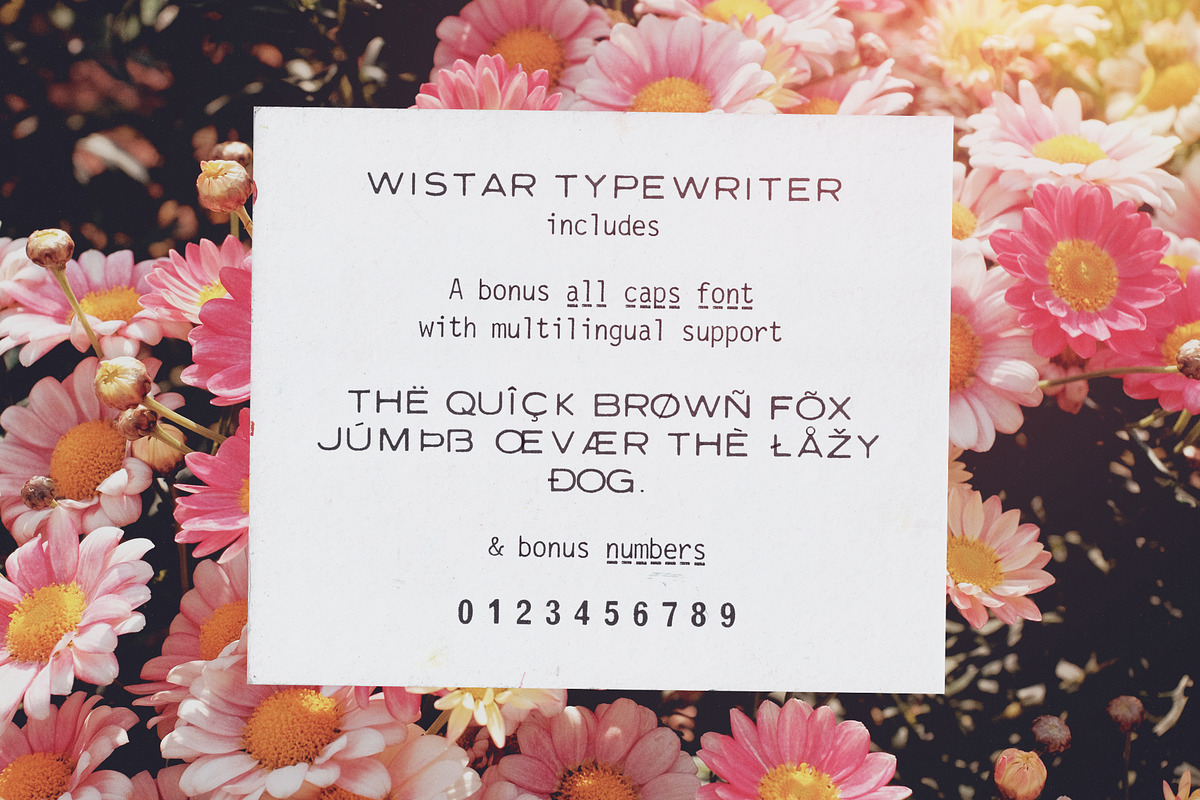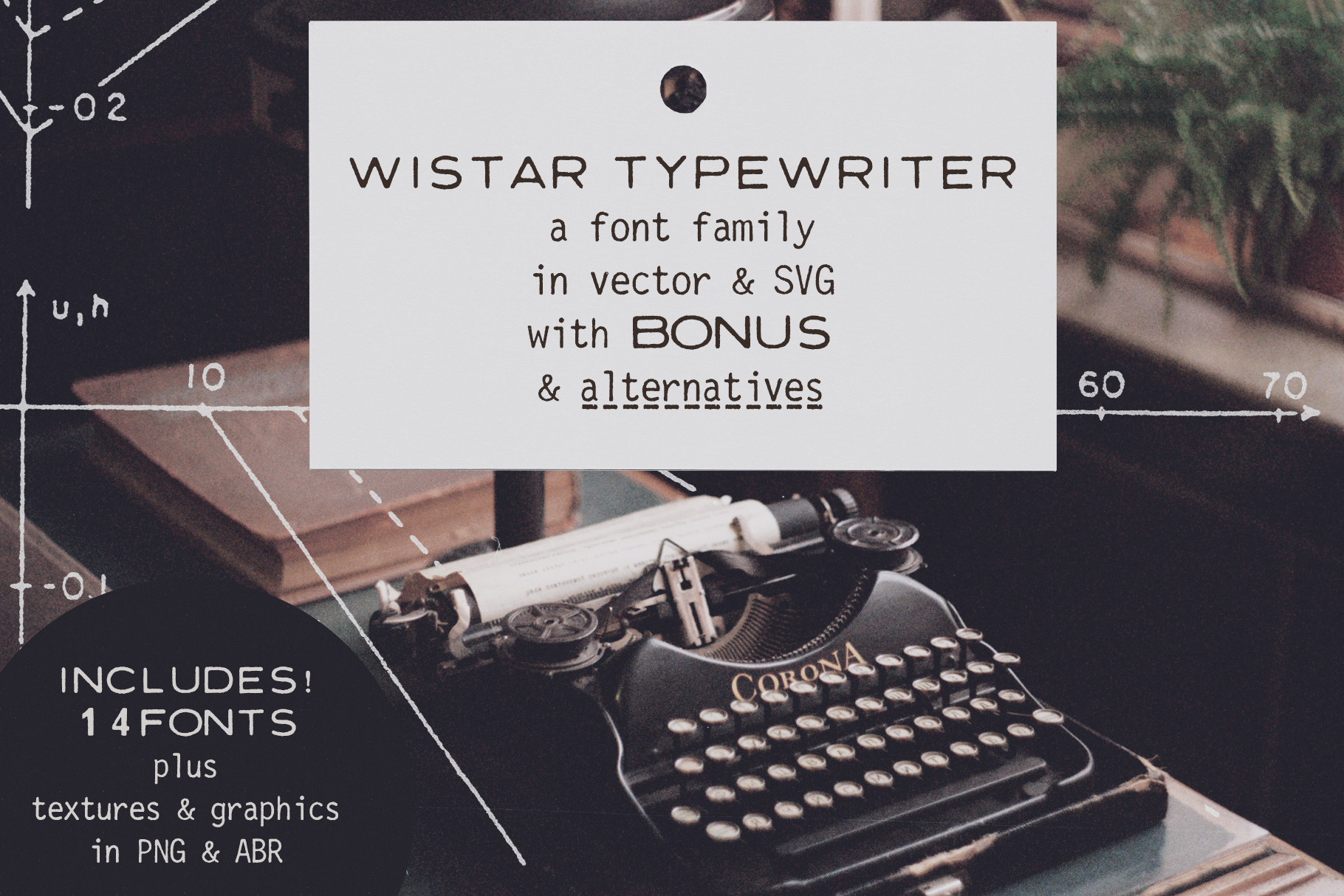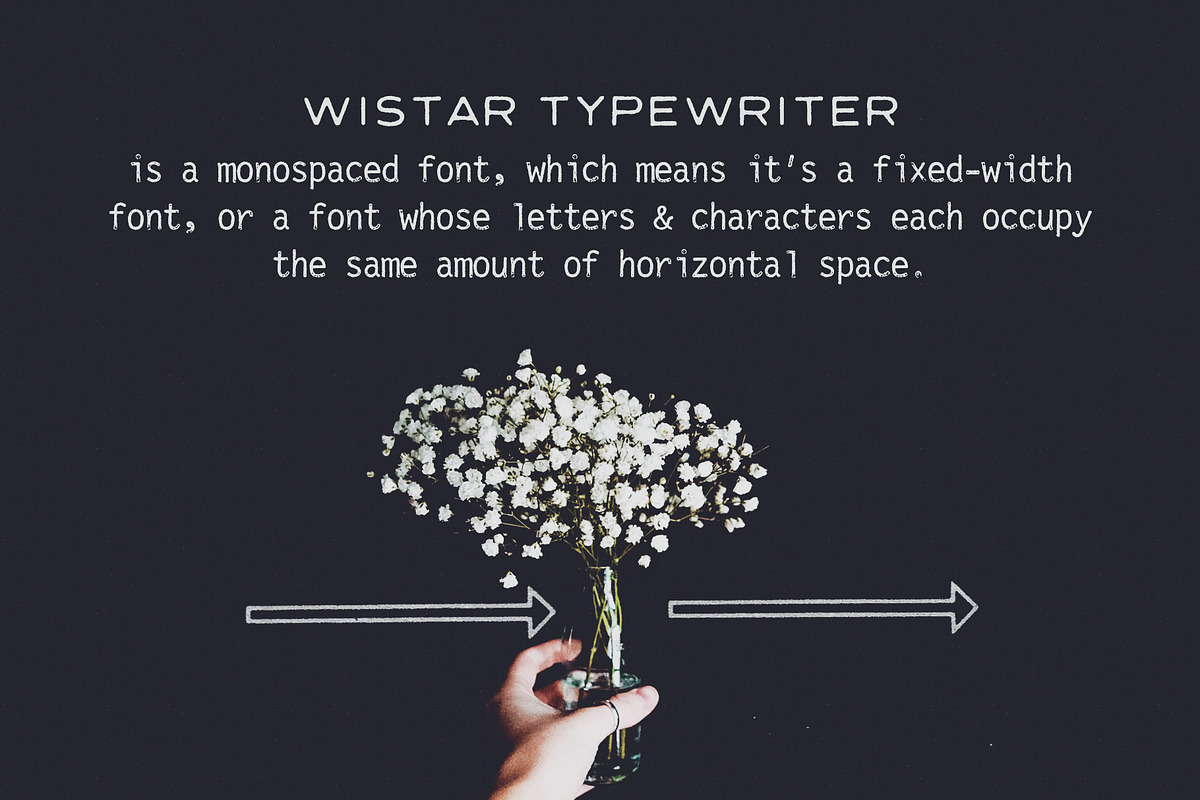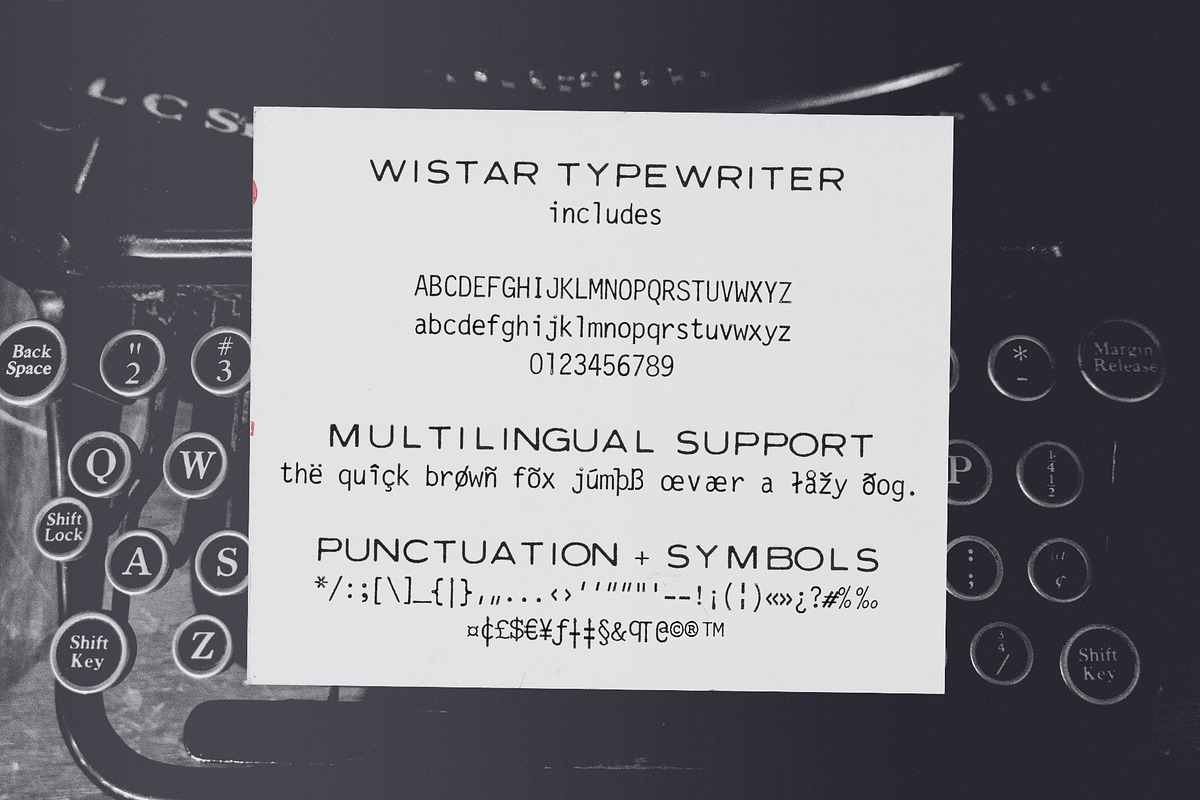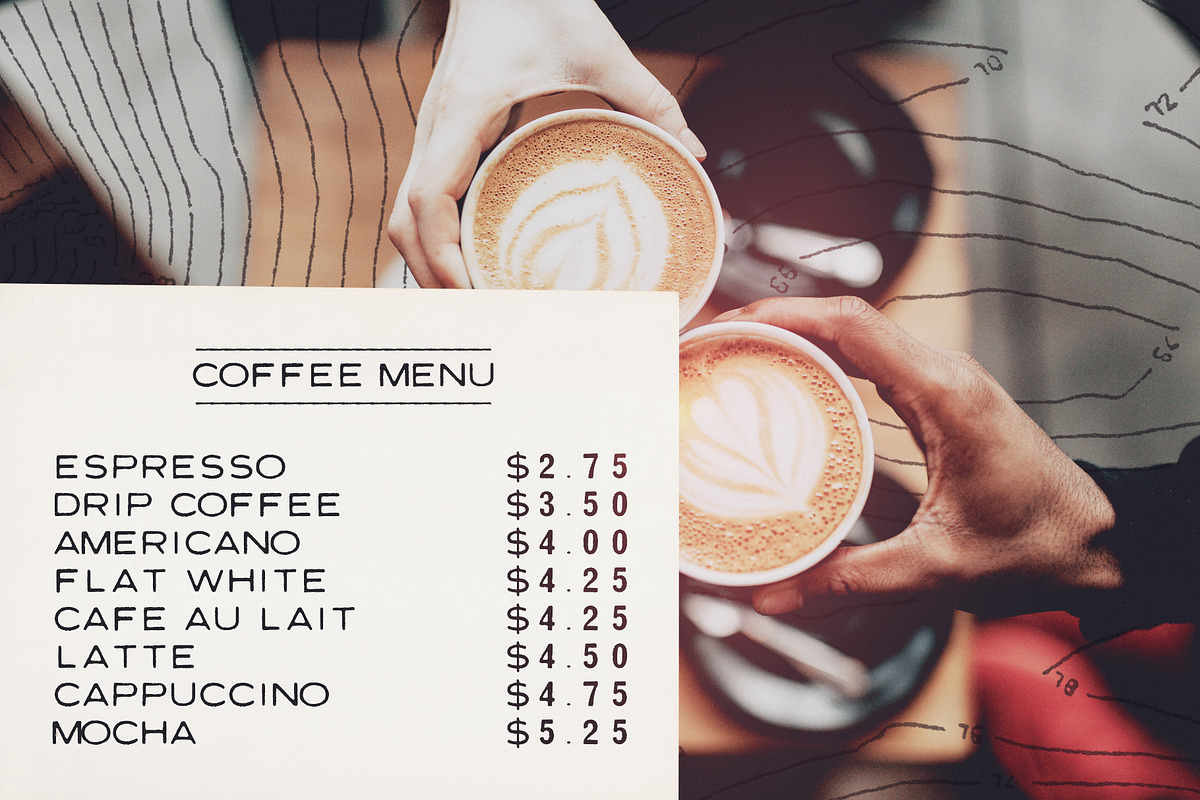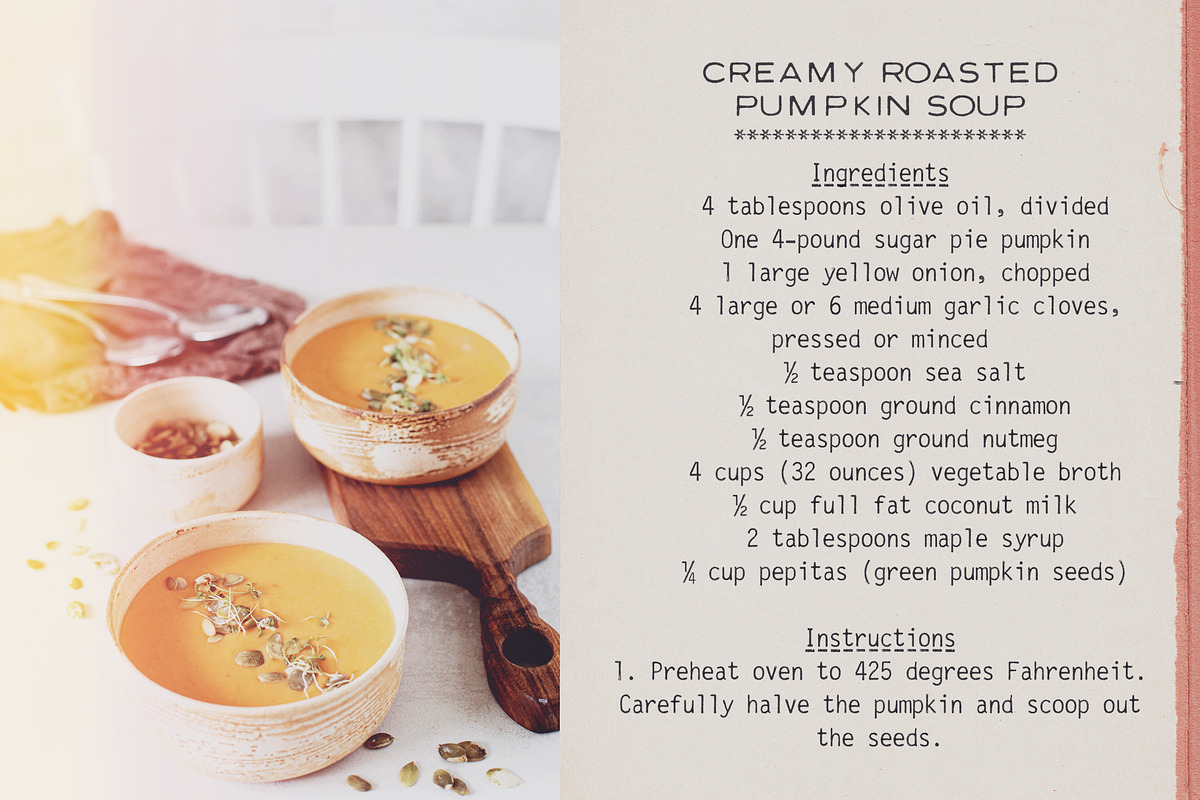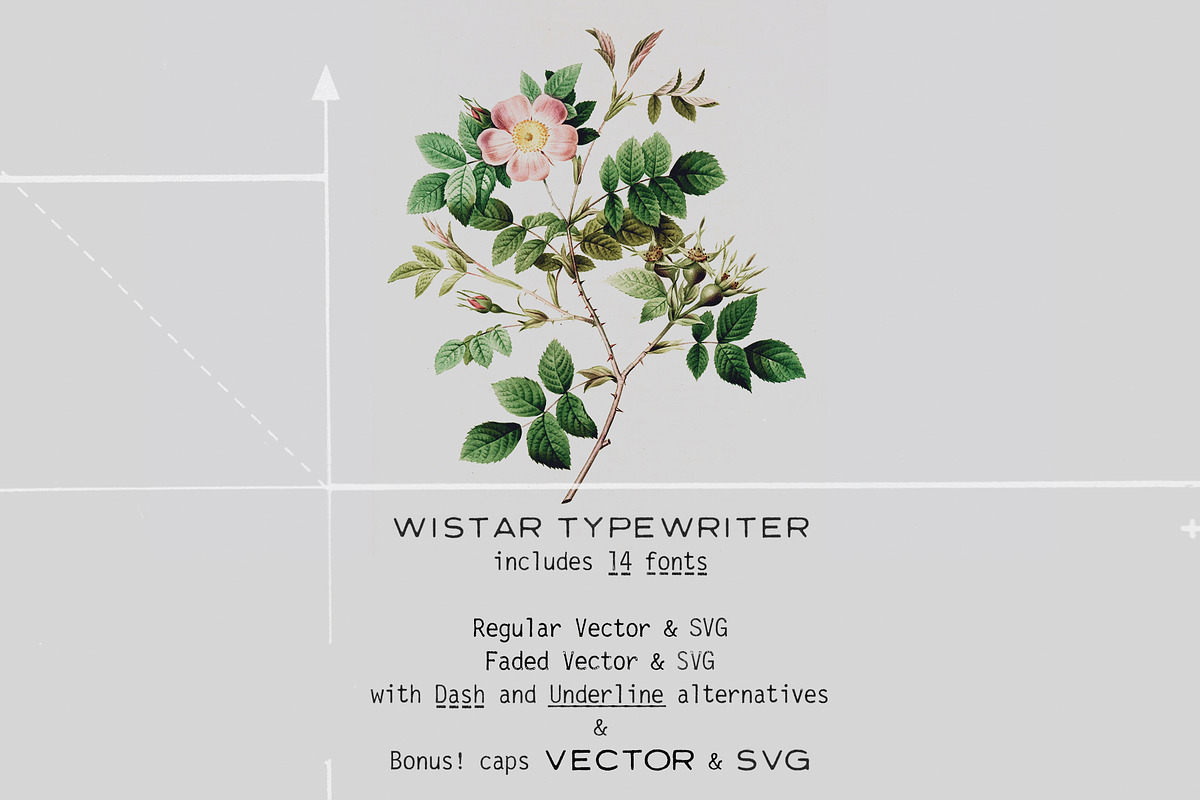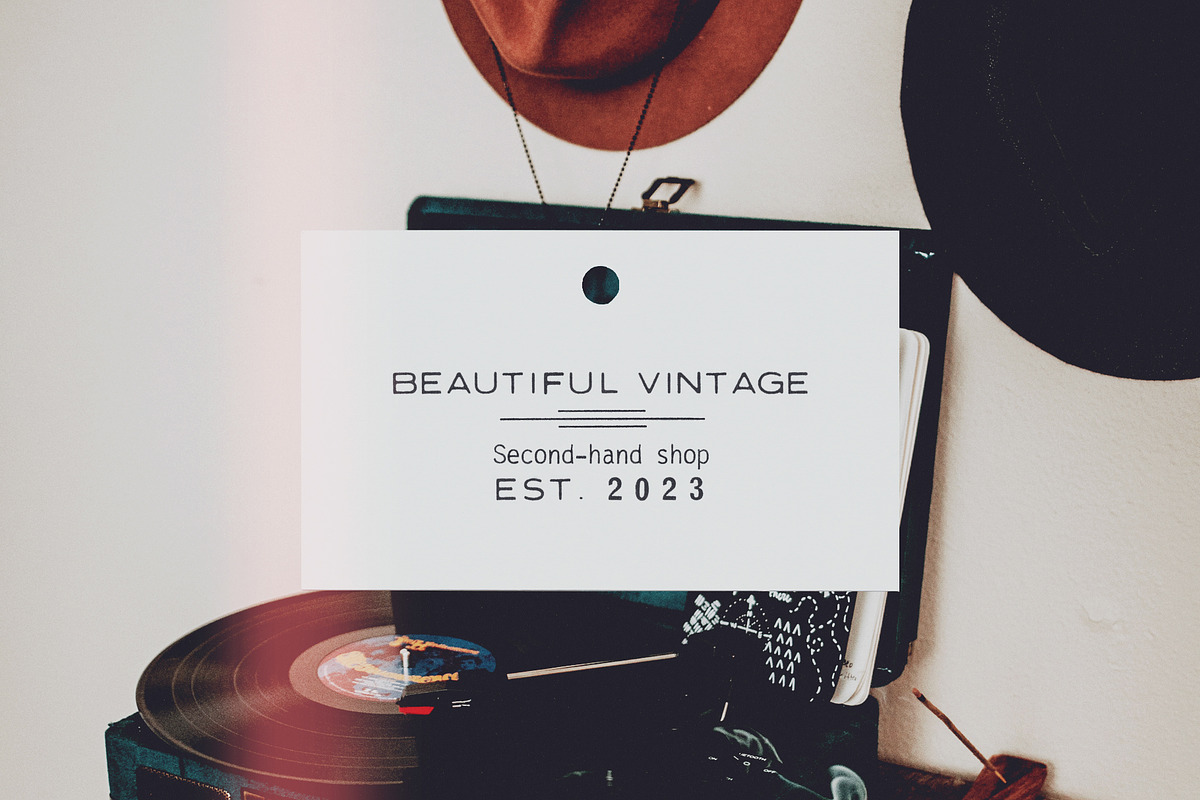
Wistar Typewriter SVG Font Family
Wistar Typewriter is a monospaced typewriter font in two styles: Regular and Faded, in both vector and SVG versions, with dashed line and underline alternatives and a bonus caps font, for a total of 14 fonts. In combination with a set of vintage graphic elements and paper textures, this font family is so versatile and ready to use in modern and retro designs alike. This font is also very legible at a wide range of sizes and looks great in both long or short texts, in digital collages, branding and packaging, social media posts, logotypes, etc.
- Wistar Typewriter font family with 14 individual fonts, with a soft realistic texture